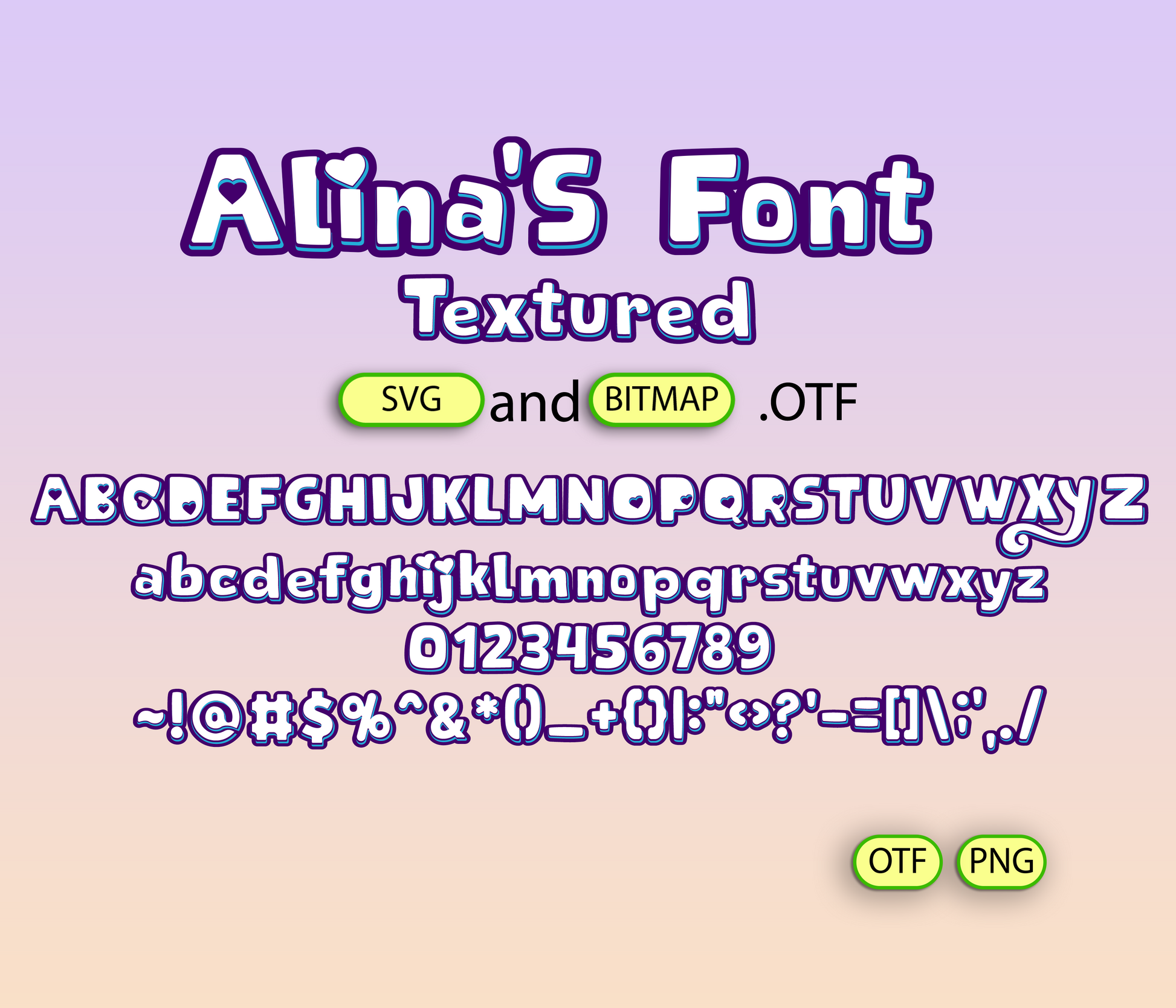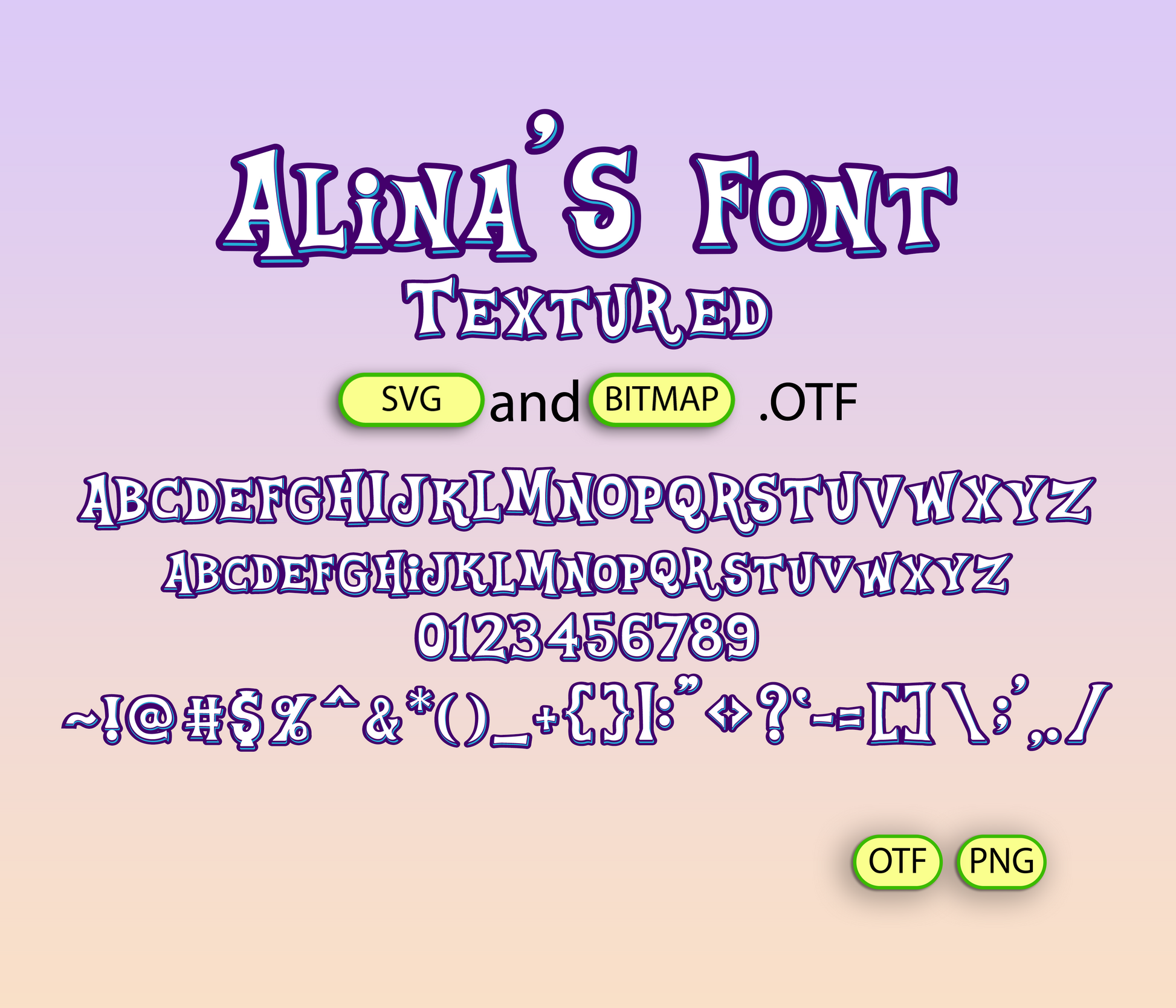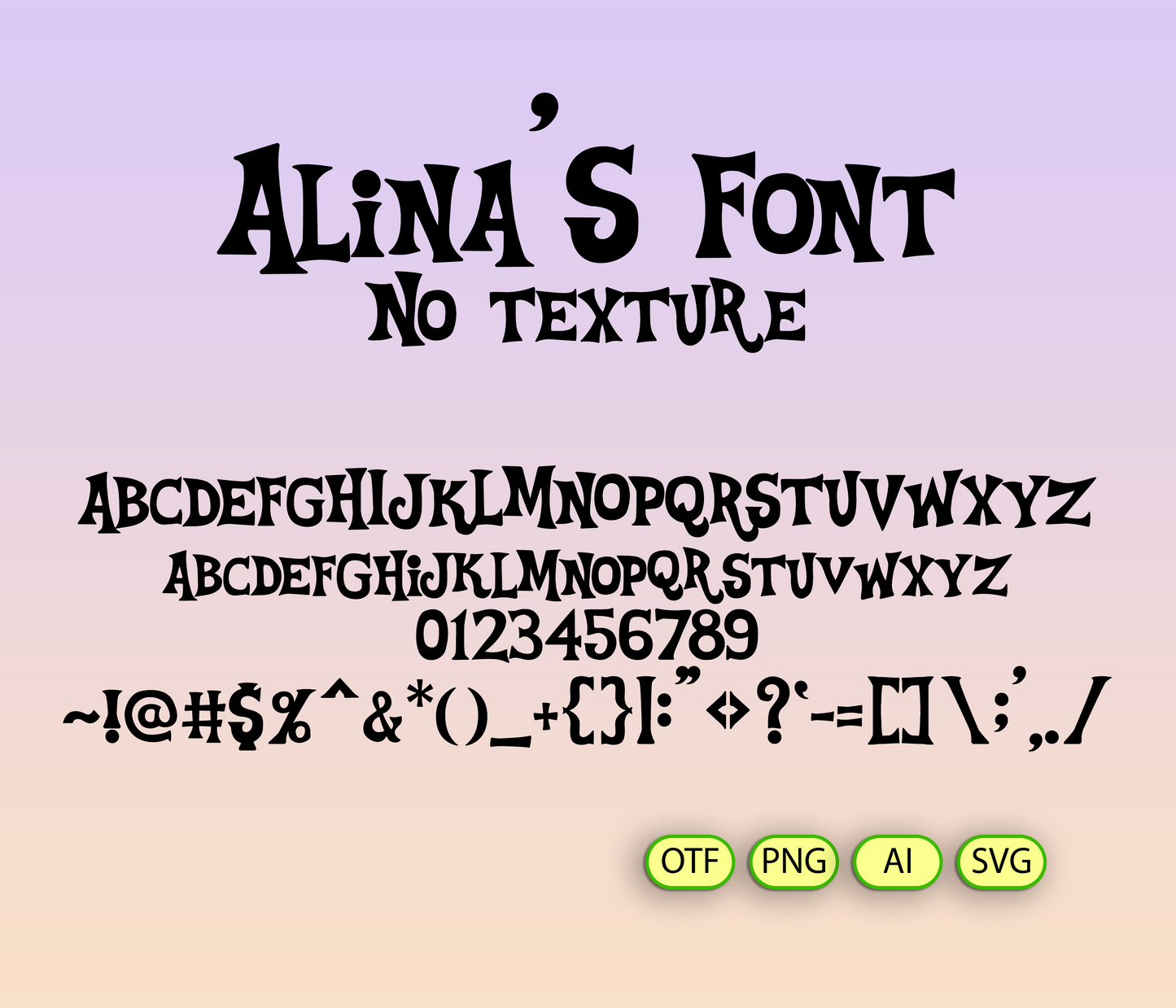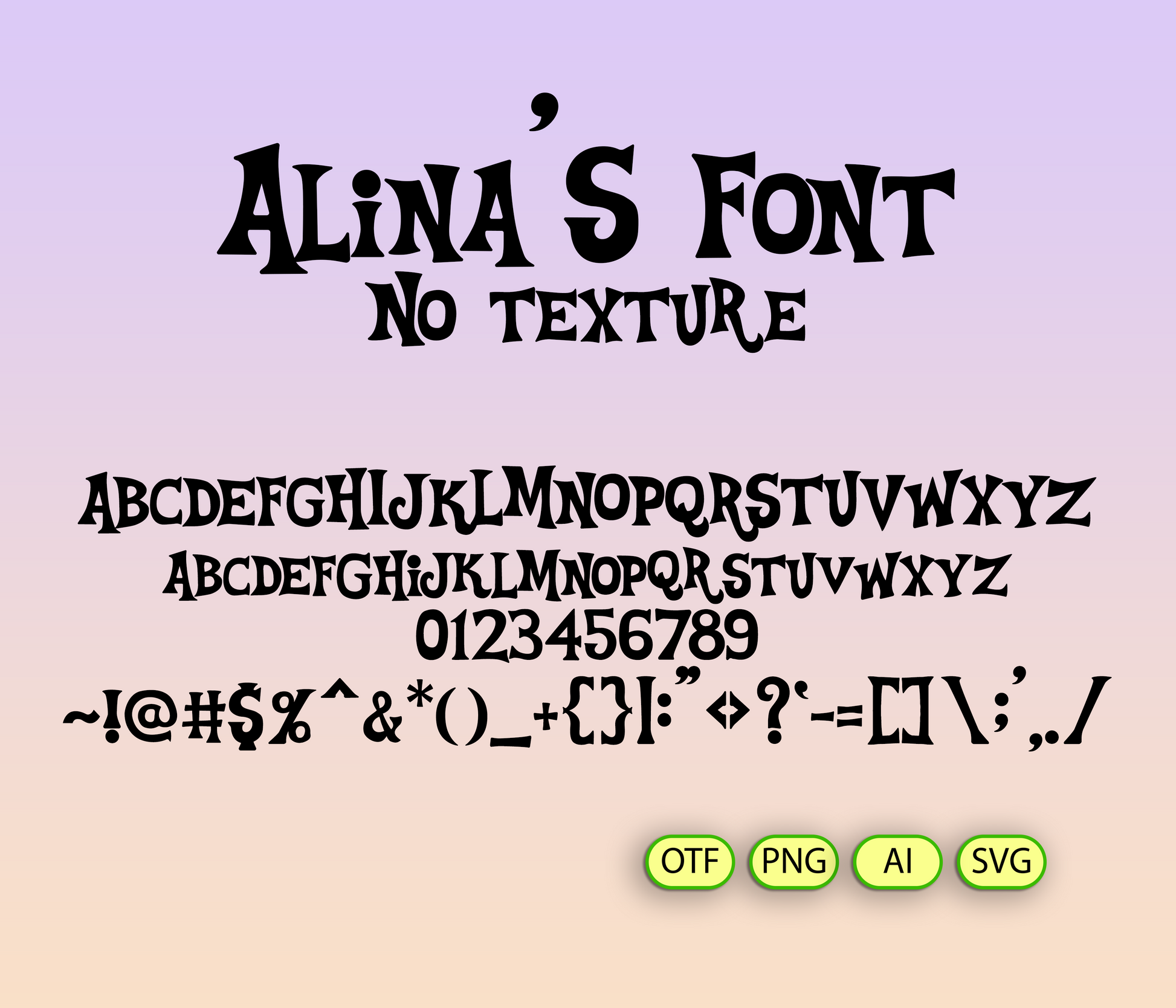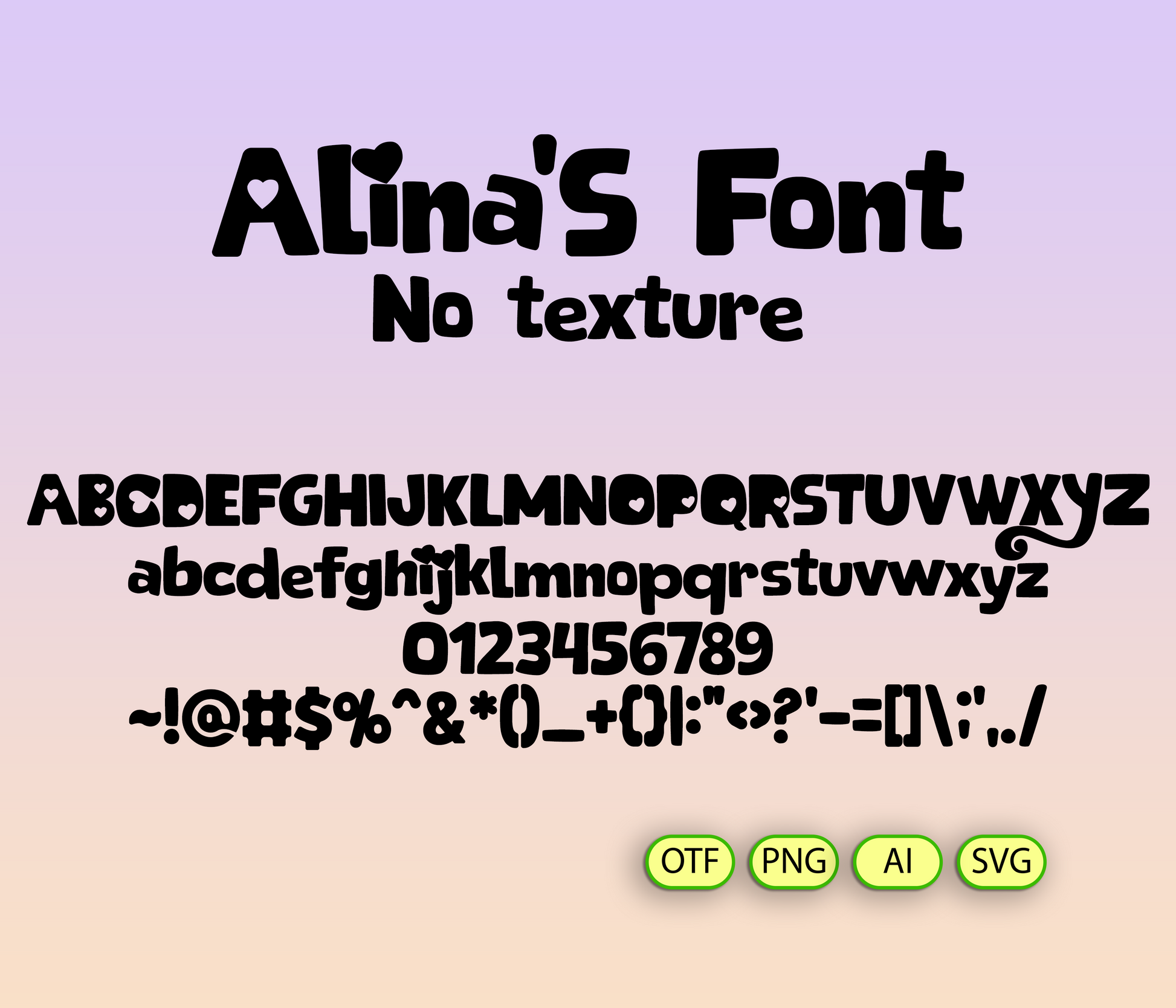
Rainbow Dreams Fonts Textured Bundle
Looking for that special touch to elevate your designs? Our Rainbow Dreams Textured Font, deeply inspired by the whimsical world of magical ponies, is a game-changer for any creative project. Tailor-made for Cricut machine users, this font transforms ordinary t-shirts and print on demand merchandise into pieces of art that dazzle and delight.
But that's not allโthis versatile font takes your party planning to the next level. From magical cake toppers to eye-catching birthday invitations, it's the go-to choice for making any celebration unforgettable. Whether you're planning an event for your girl or daughter, this enchanted pony-themed font will charm attendees and make you the star of the show.
This font is perfect for:
- Creating whimsical party decorations
- Designing custom apparel for young fantasy enthusiasts
- Crafting unique greeting cards with a magical touch
- Making eye-catching social media graphics
- Personalizing school supplies with a dash of wonder
- Developing fun, fantasy-inspired educational materials
- Designing logos for children's entertainment businesses
- Creating playful website headers for family-friendly blogs
- Crafting memorable invitations for themed parties
- Adding a touch of magic to DIY craft projects
Whether you're a fan of colorful animated ponies or simply love whimsical designs, this font offers a unique way to bring enchantment and joy to your creative projects.